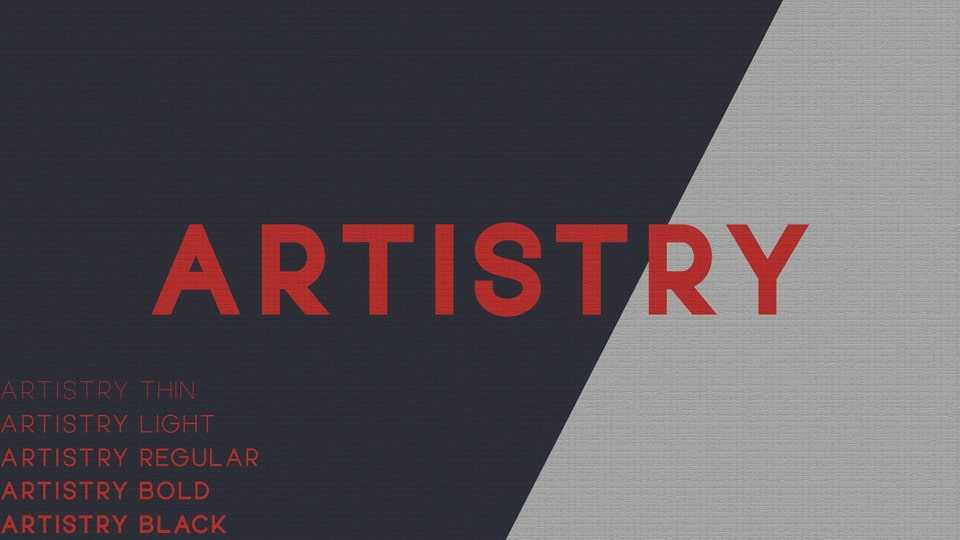
Download Artistry font, a exquisite typeface full of elegance and minimalism. Crafted with utmost precision, Artistry font effortlessly enhances any project, whether it be a magazine, logo, or film poster.
Designer: Nandesign Studio